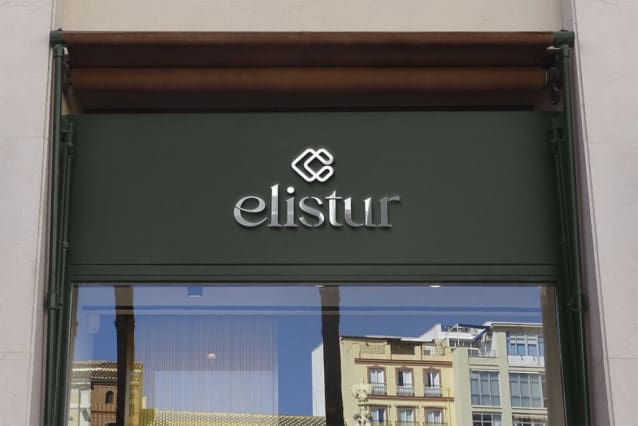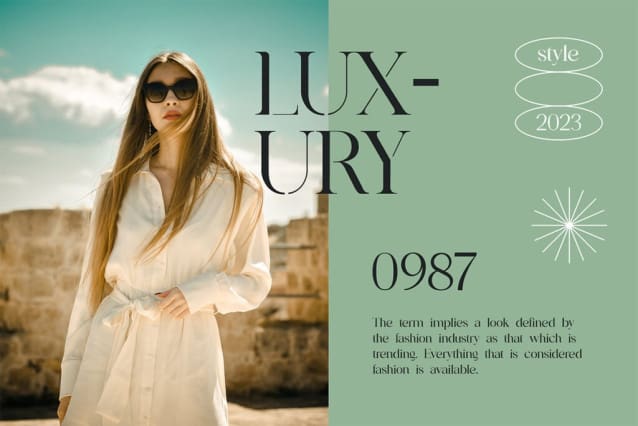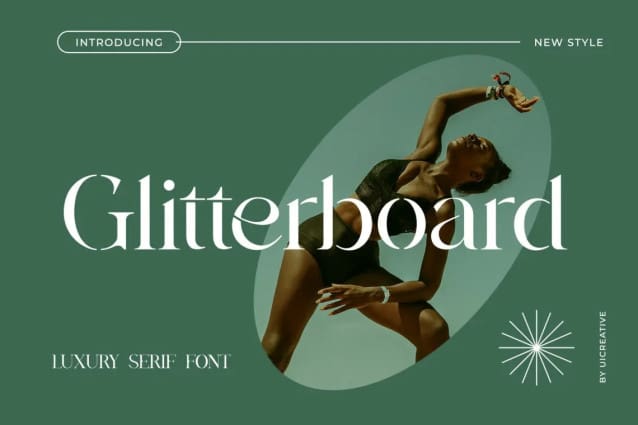
Glitterboard Font
Glitterboard Font – The luxury serif font feels beautiful classy, elegant, and stylish. This font is ideally suited for a wide variety of projects, such as signature, stationery, logo, wedding, typography quotes, magazine or book covers, website headers, branding, and more. Also, fashion-related branding or editorial design displays both masculine and feminine qualities.